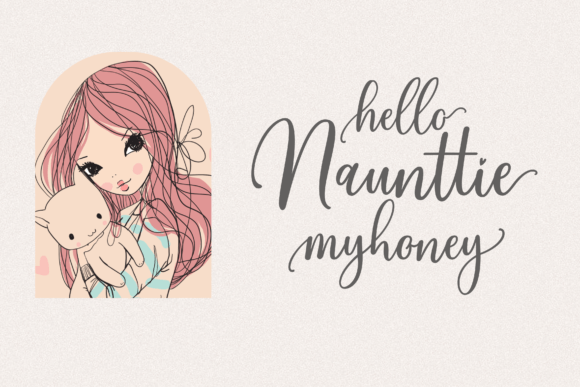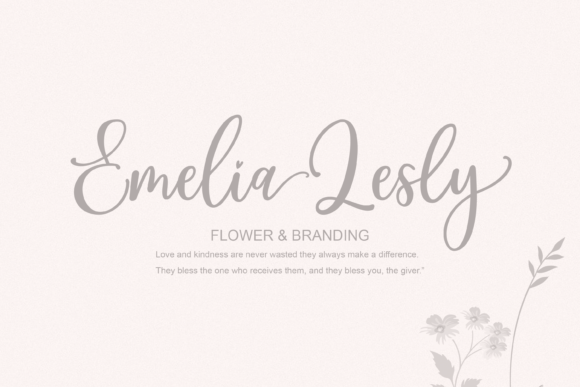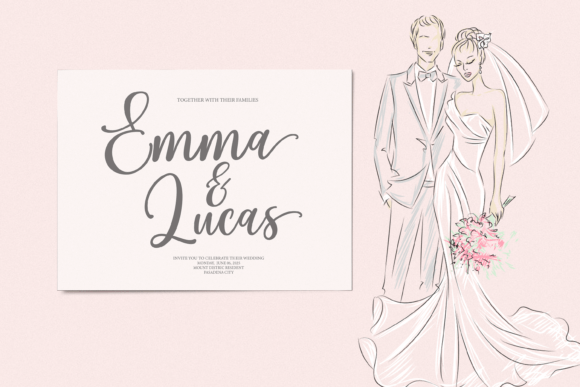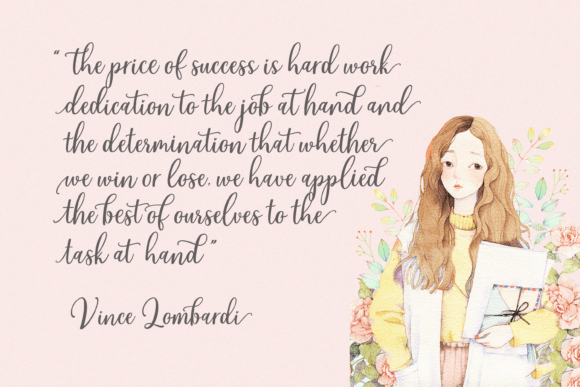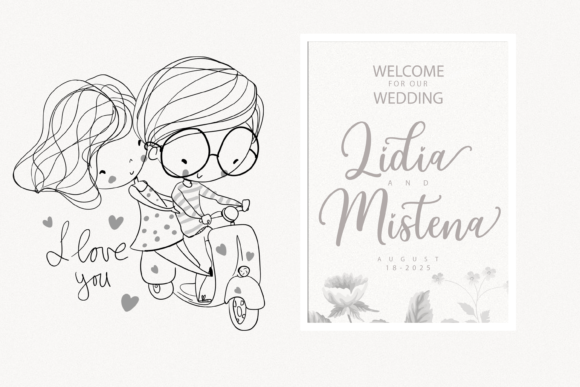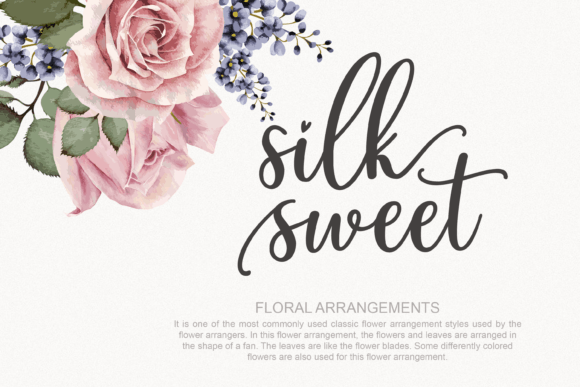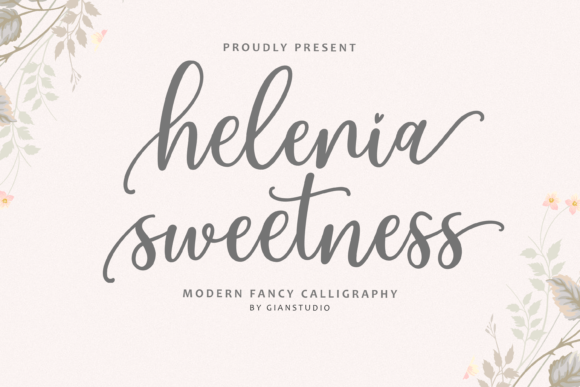
Introducing Helenia Sweetness Font: Elevate Your Designs with Modern Calligraphy
In the world of typography, a beautiful font can make all the difference in elevating your design to the next level. For designers, crafters, and creatives looking for a modern and elegant touch, Helenia Sweetness Font is an exceptional choice. This stunning modern calligraphy script font is meticulously crafted to bring a touch of sophistication and charm to your projects.
What Makes Helenia Sweetness Font Special?
Helenia Sweetness is not just another font; it’s a work of art that brings a modern script style to your designs. Every single letter has been carefully crafted to ensure that your text looks beautiful, elegant, and highly refined. The attention to detail in this font is evident, making it perfect for projects where you want to make a lasting impression.
One of the standout features of Helenia Sweetness Font is its incredible versatility. Its modern script style makes it suitable for a wide range of projects, including:
- Invitations: Whether it’s a wedding invitation, birthday party invite, or any other special occasion, Helenia Sweetness adds a touch of class and sophistication.
- Greeting Cards: Make your greeting cards stand out with a font that exudes warmth and elegance.
- Posters: Create eye-catching posters for events, promotions, or informational purposes with a font that’s both modern and stylish.
- Name Cards: Perfect for conferences, meetings, or networking events, Helenia Sweetness ensures your name card stands out.
- Quotes: Add a touch of inspiration to your quotes with a font that’s both beautiful and easy to read.
- Blog Headers: Elevate your blog’s aesthetic with a stylish font that captures your readers’ attention.
- Branding and Logo: Create a memorable brand identity with a unique and stylish font.
- Fashion and Apparel: Perfect for fashion brands, designers, or crafters looking to add a modern touch to their product labels or marketing materials.
- Stationery: Add elegance to your letters, notebooks, or any stationery with Helenia Sweetness.
Why Choose Helenia Sweetness Font?
For designers and crafters, the choice of font can significantly impact the overall look and feel of a project. Here are a few reasons why Helenia Sweetness Font should be at the top of your list:
- Elegant and Modern: Helenia Sweetness brings a modern calligraphy script style that’s both elegant and trendy.
- Highly Versatile: Suitable for a wide range of projects, from digital to print.
- Easy to Read: Despite its elegant style, Helenia Sweetness remains clear and easy to read, making it perfect for both headings and body text.
- Unique and Memorable: Stand out from the crowd with a font that’s not only beautiful but also unique.
Tips for Using Helenia Sweetness Font
To make the most of Helenia Sweetness Font, consider the following tips:
- Pair with Complementary Fonts: For maximum impact, pair Helenia Sweetness with simpler fonts to create a balanced look.
- Experiment with Colors: While the font itself is stunning, experimenting with different colors can further enhance your design.
- Use for Headings and Titles: Helenia Sweetness shines as a heading or title font, but don’t be afraid to use it for short paragraphs or quotes for added emphasis.
Helenia Sweetness Font is more than just a font; it’s a design element that can elevate your projects to new heights. Its modern calligraphy script style, combined with its versatility and elegance, makes it an indispensable tool for designers and crafters. Whether you’re working on a branding project, creating beautiful stationery, or designing eye-catching posters, Helenia Sweetness is sure to bring a touch of sophistication and charm. Add it to your collection today and discover the difference it can make in your designs.